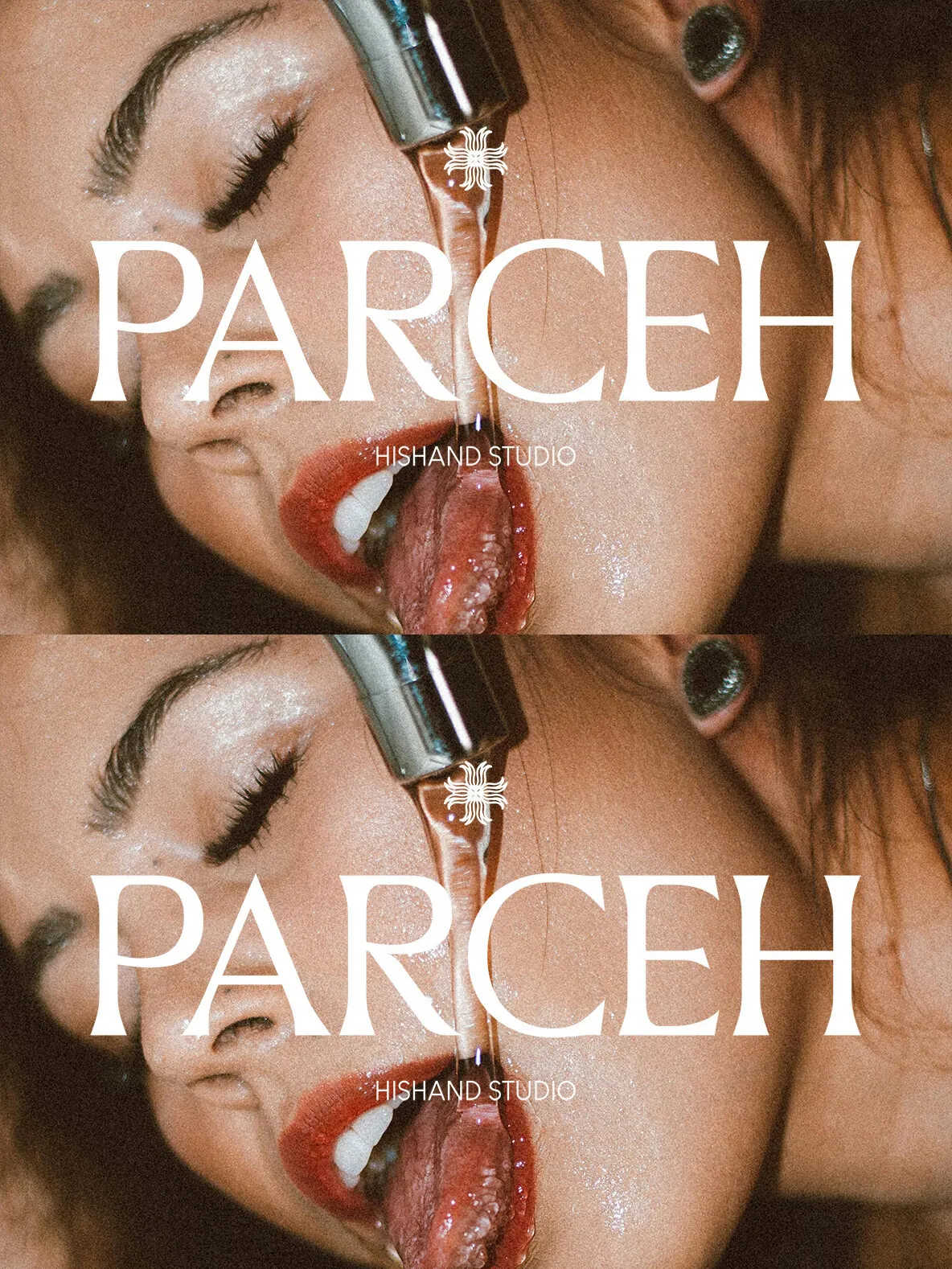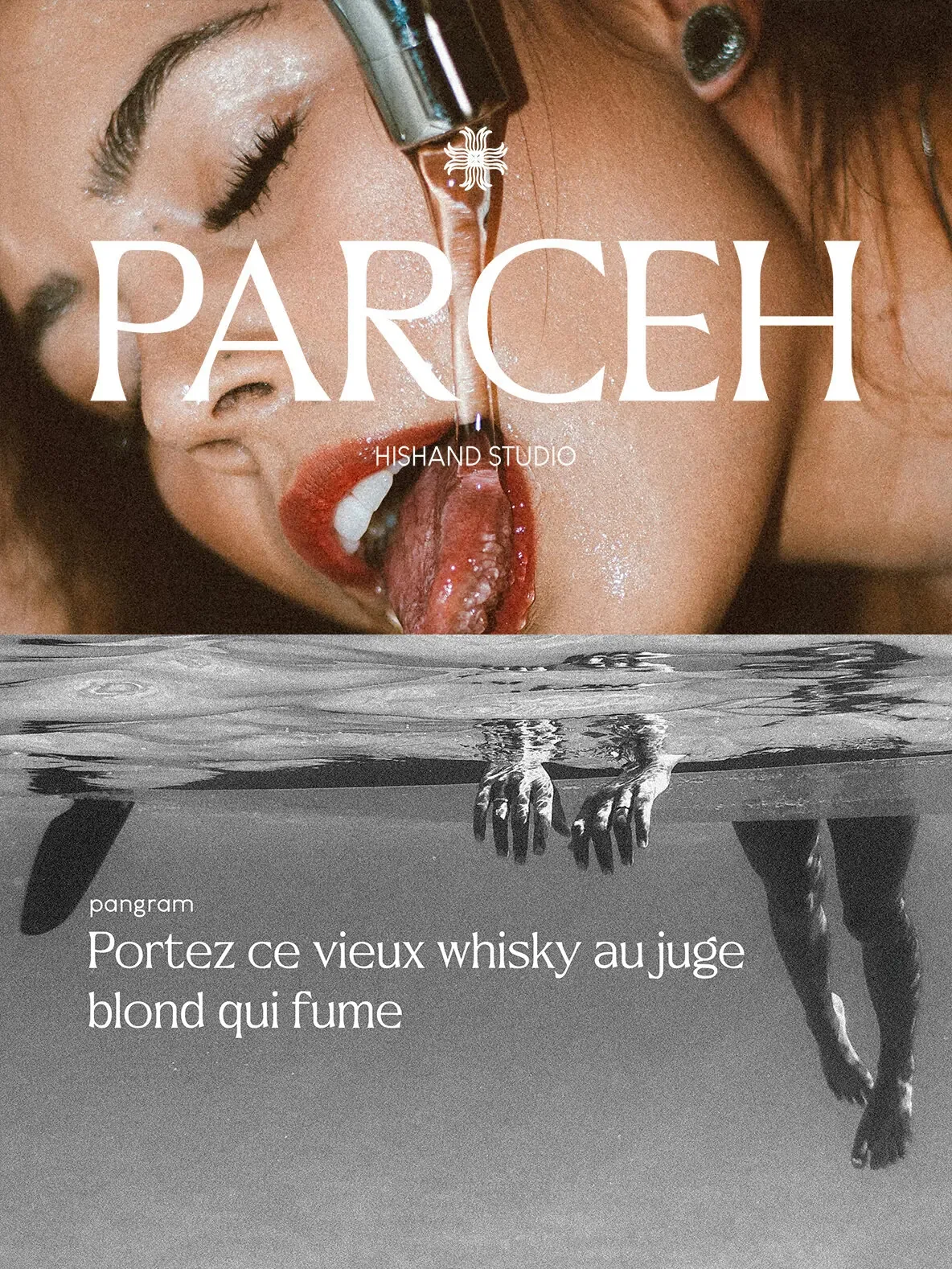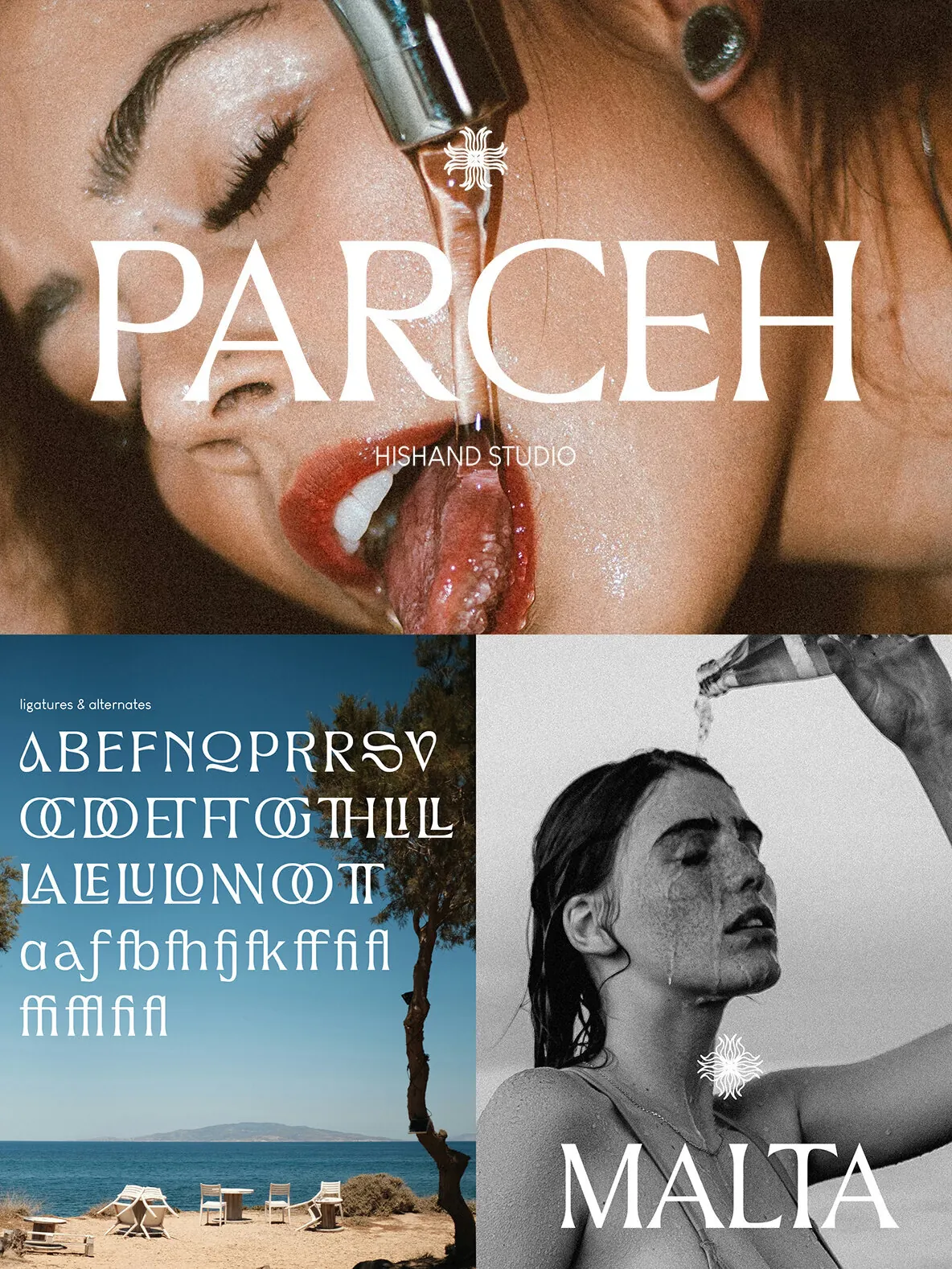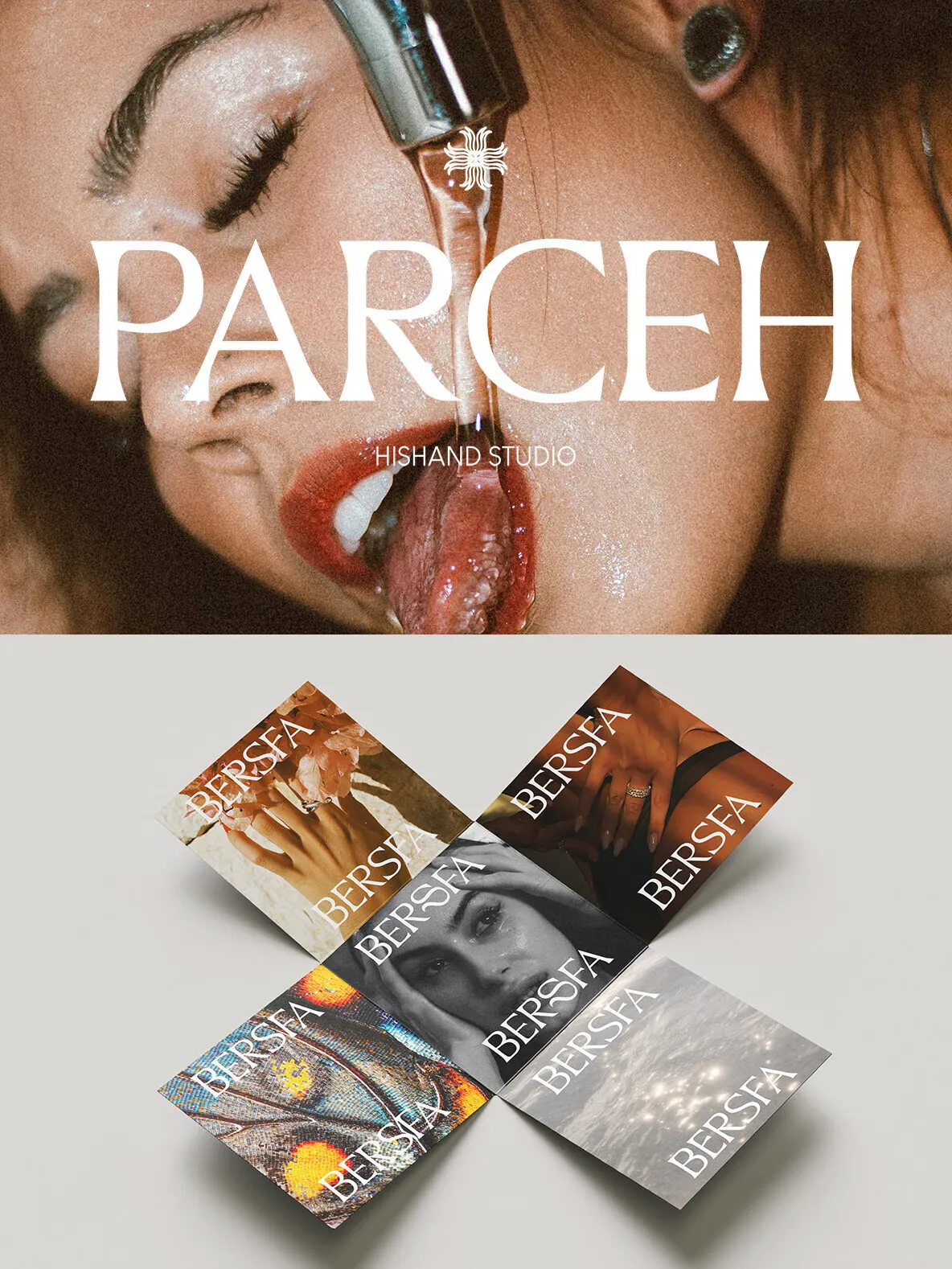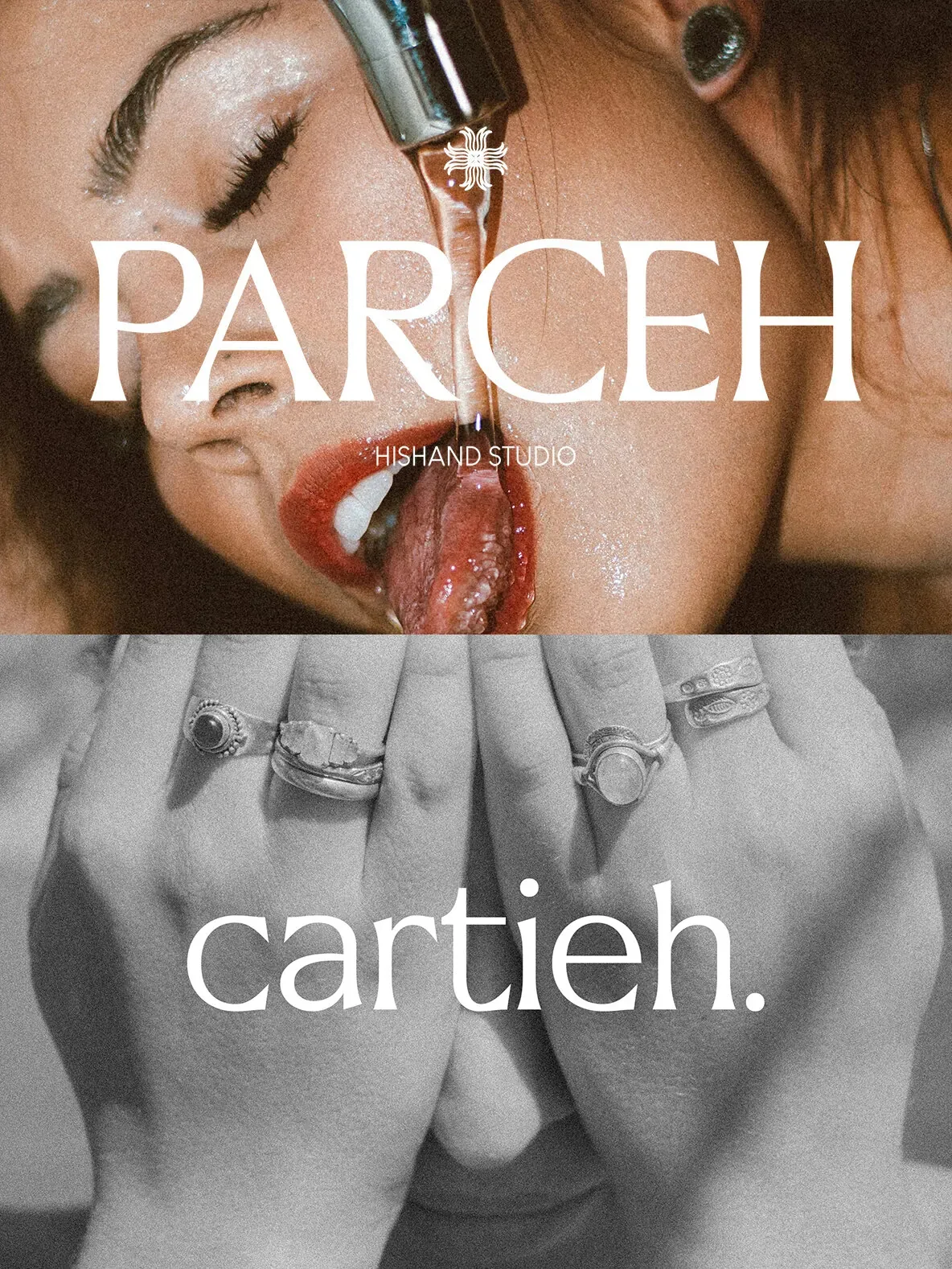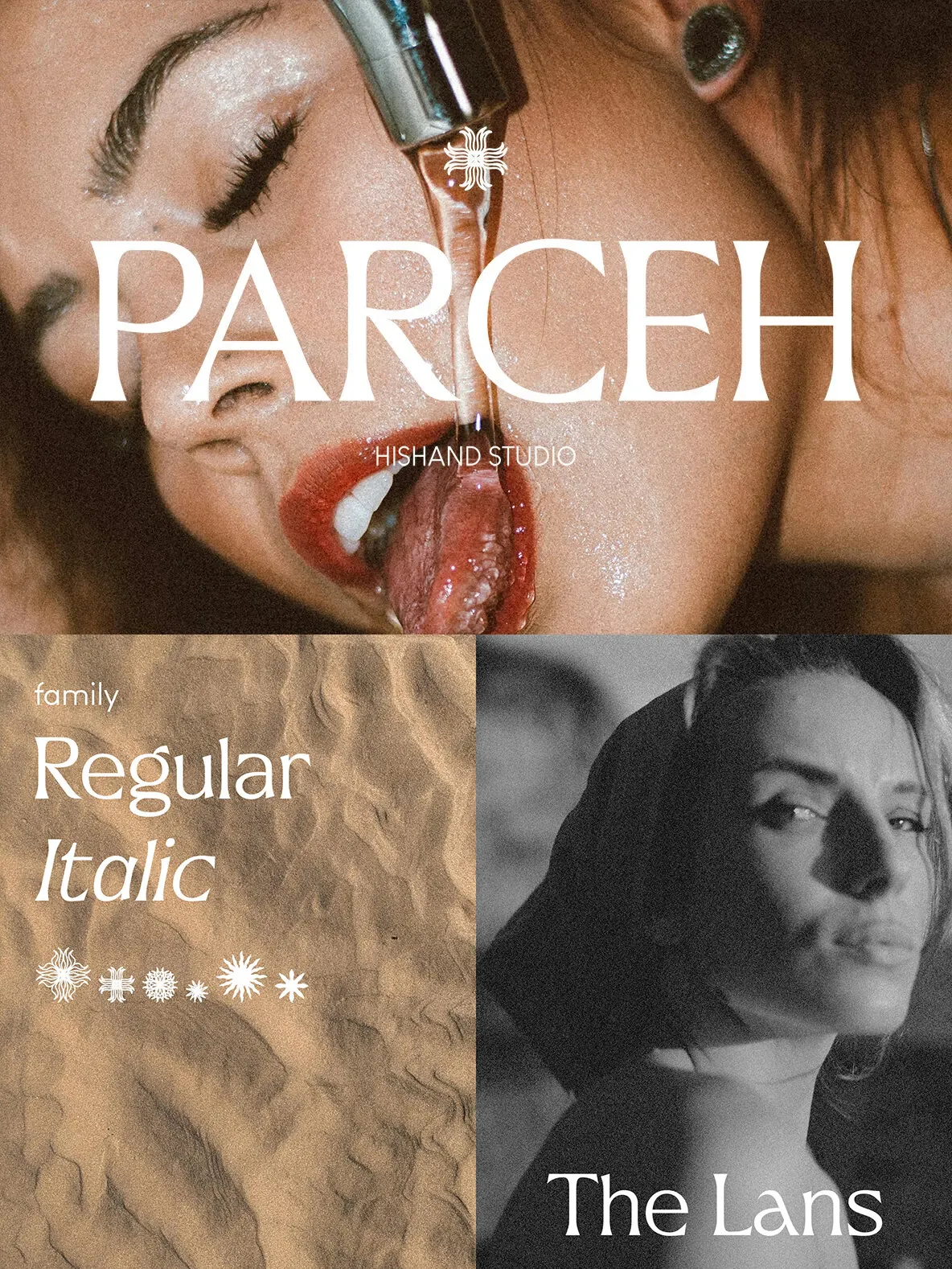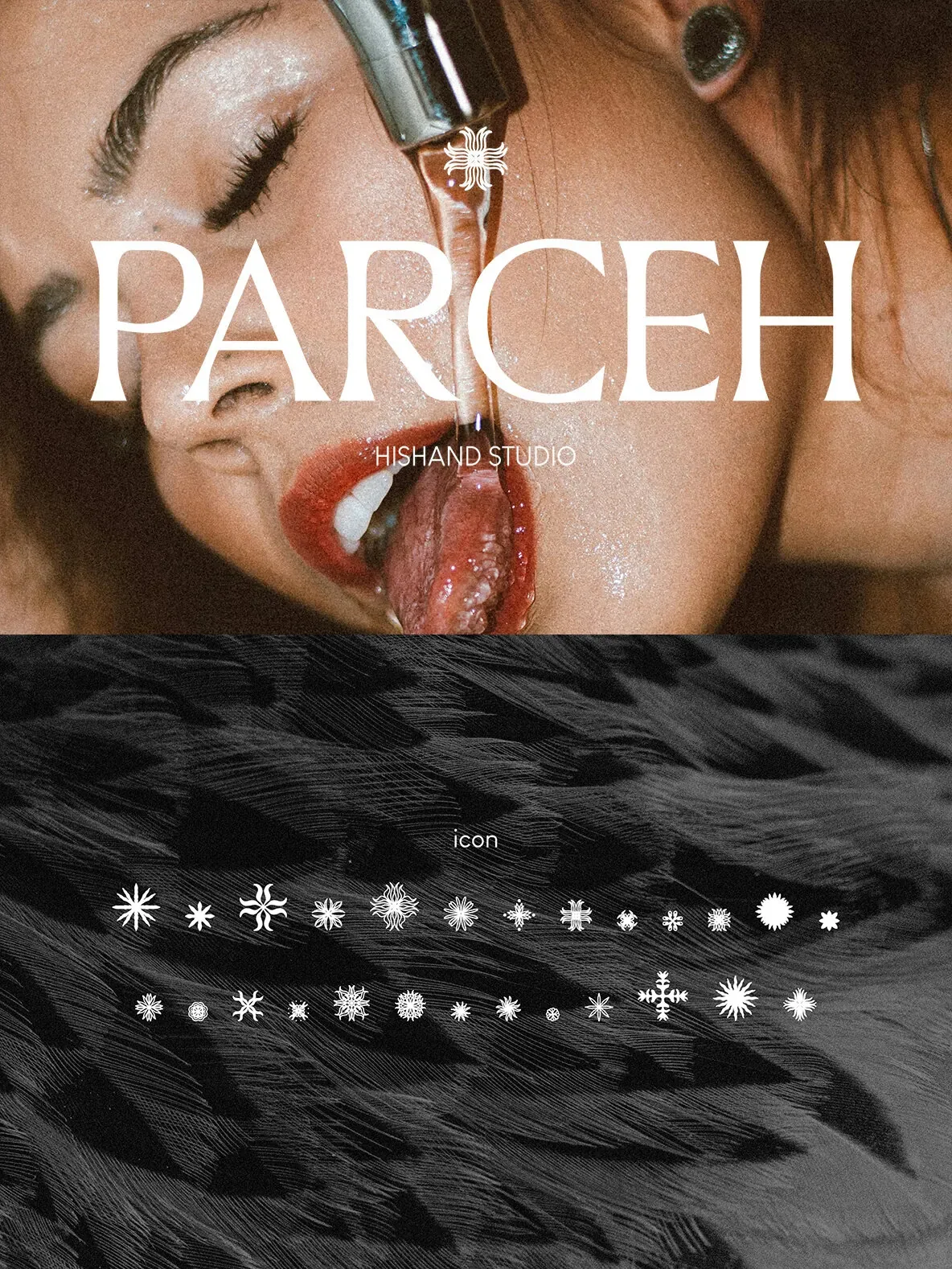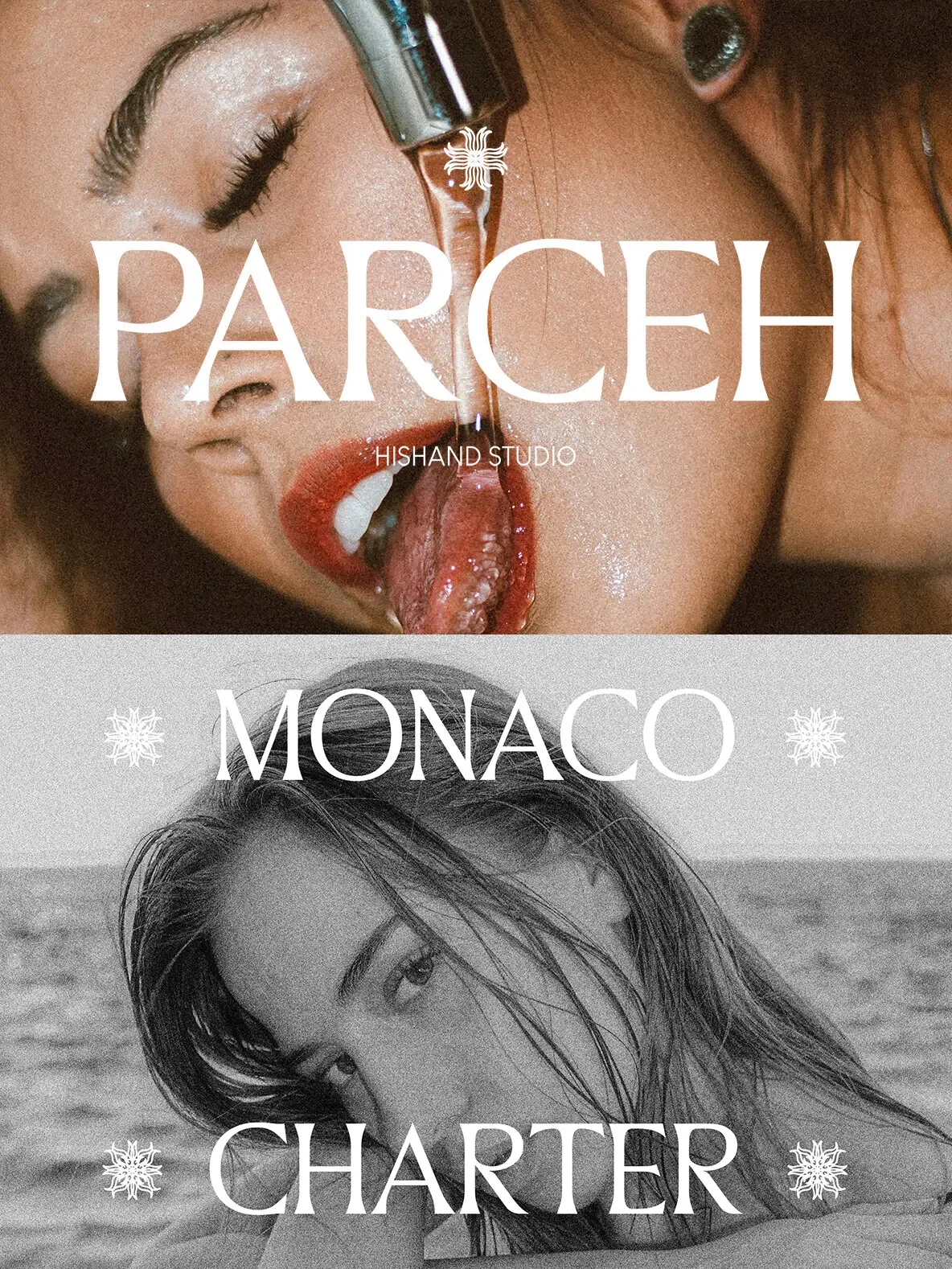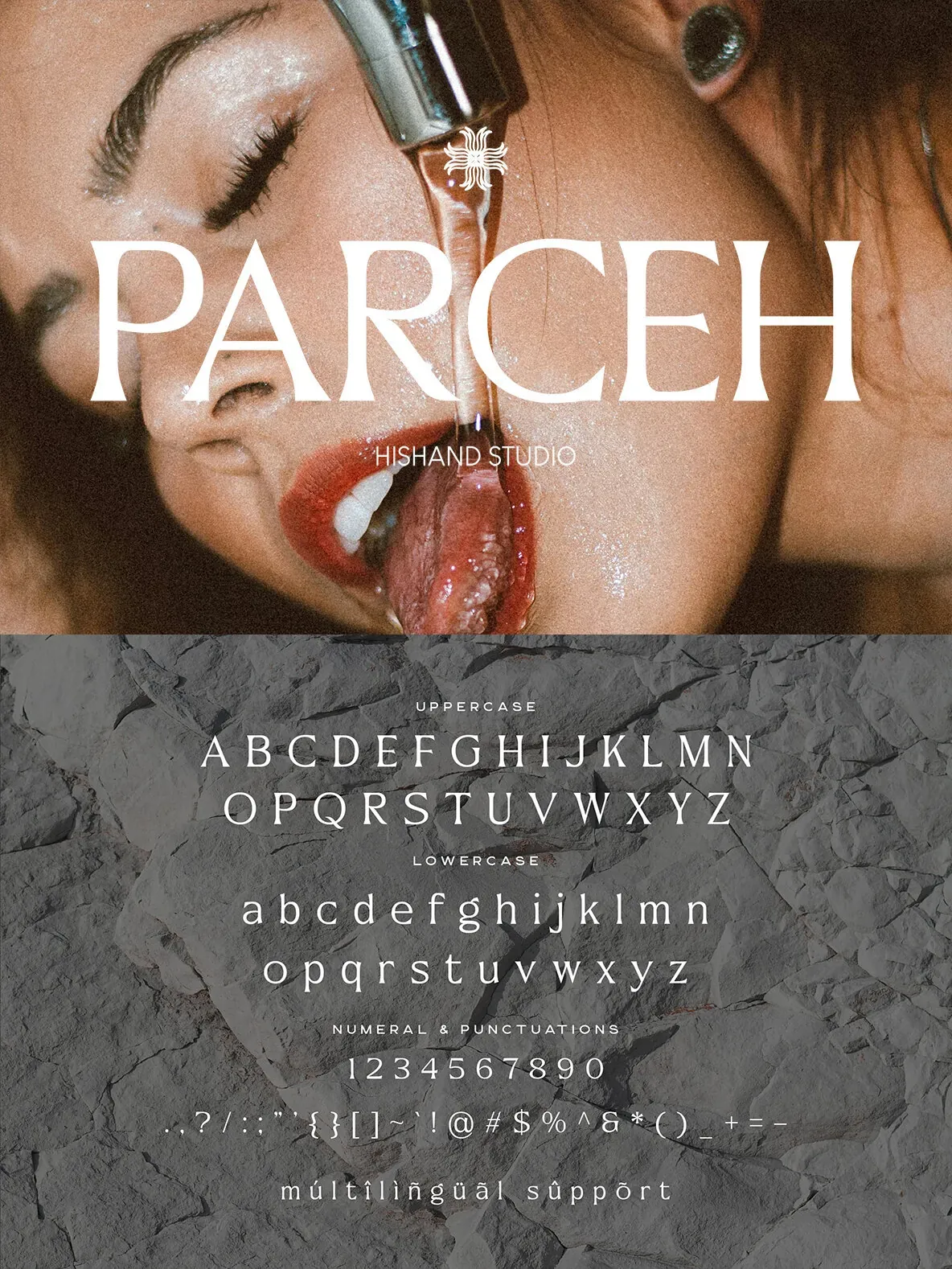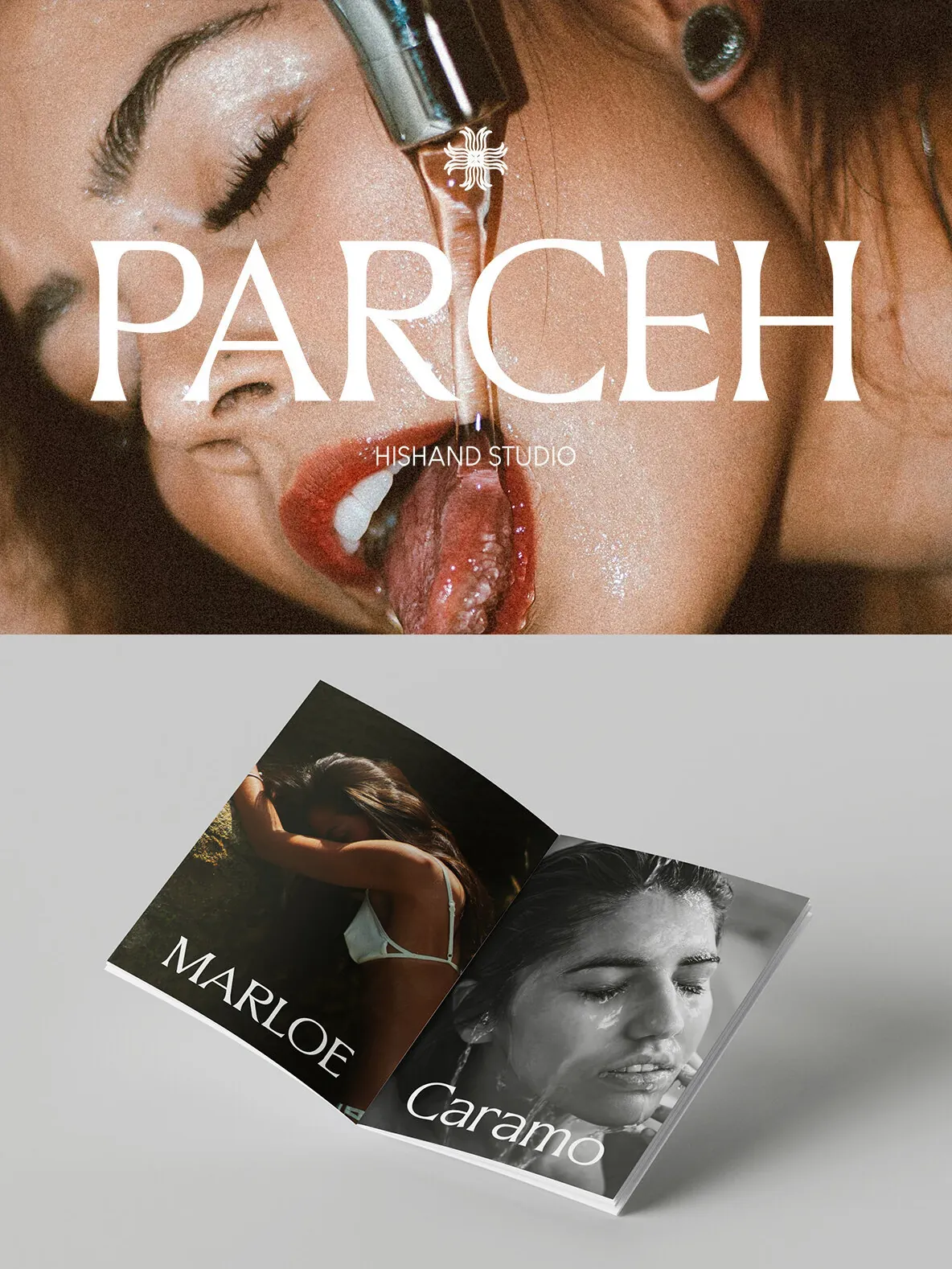
Parceh Font
Parceh — Poised Editorial Elegance
Parceh is an elegant serif display font made for refined yet striking visual work. Its delicate high-contrast strokes, graceful serifs, and poised proportions give it a luxurious editorial tone with sophistication and timeless beauty. Parceh works beautifully in headlines, fashion branding, posters, and premium packaging where elegance and style carry equal weight.
Parceh stands out through its fine, fashion-forward character. Each letterform uses a strong thin-to-thick contrast and carefully detailed forms that feel both classical and contemporary. The family also includes 26 aesthetic icons, designed in the same visual language as the typeface, so designers can build cohesive, visually compelling compositions that feel polished and intentional from start to finish.
Complete With
Ligatures
Alternates
Icon